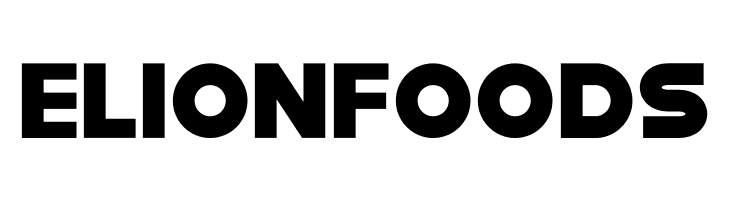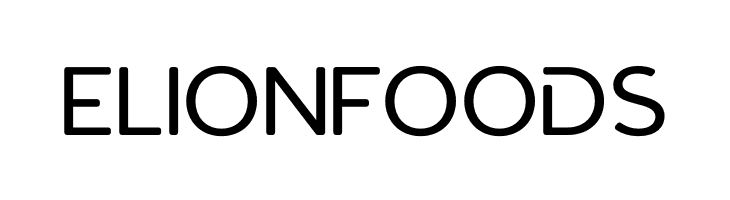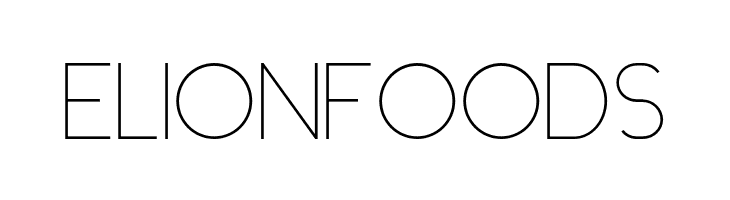
Modia-NonCommercial Font
RCgraphics
A bold, geometric font with a modern and impactful design.
A modern sans-serif font with a clean and slightly playful style.
SpaceAge Font
Font by Justin Callaghan - Personal-use only. For commercial use please contact owner.
A futuristic, geometric font with rounded edges and a modern aesthetic.
GaroaHackerClube-Bold Font
A bold, playful font with rounded edges and a modern-retro charm.
Seized Future A Font
A futuristic, geometric font with bold, angular letterforms.
Urban Rubber Font